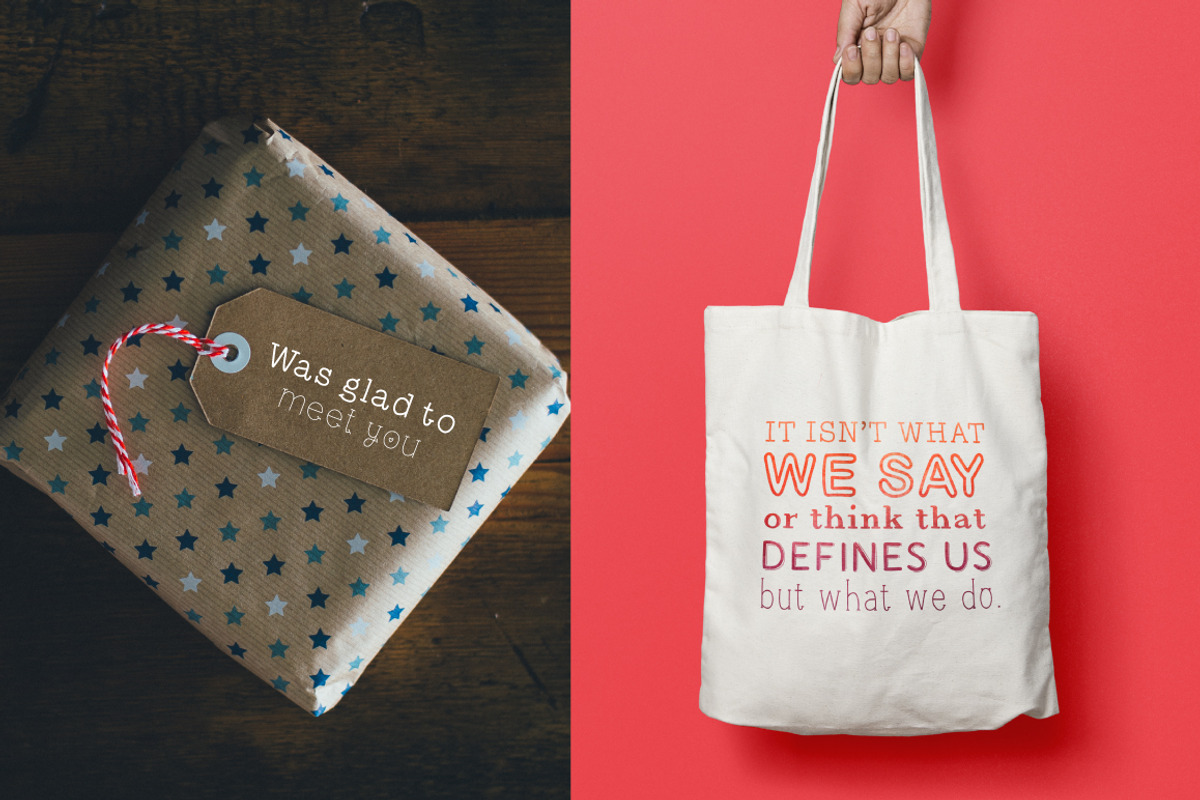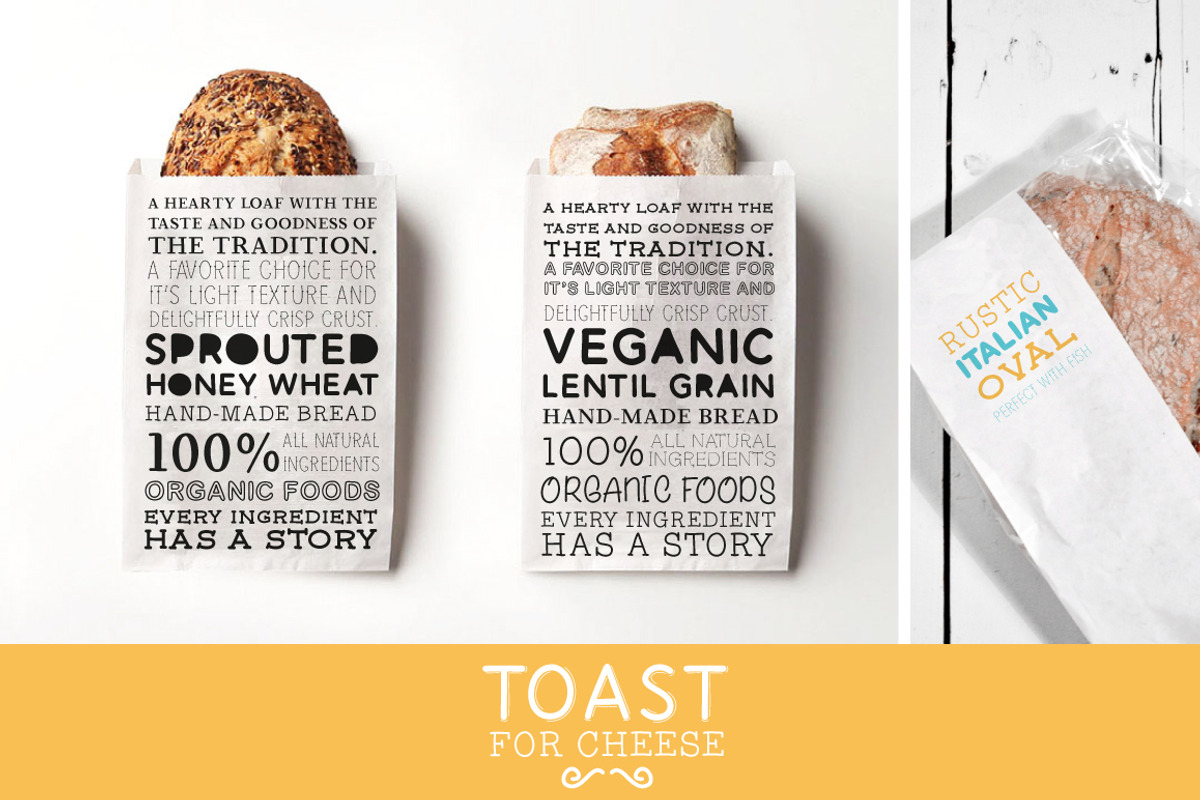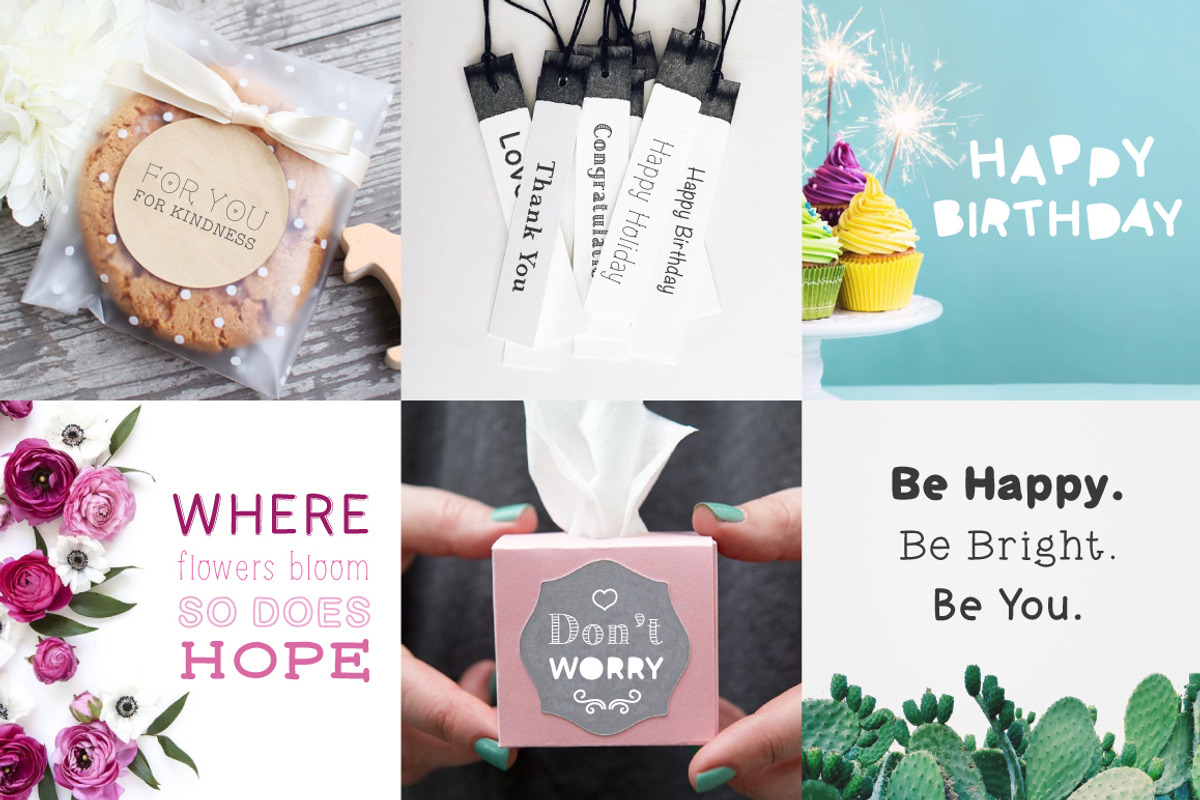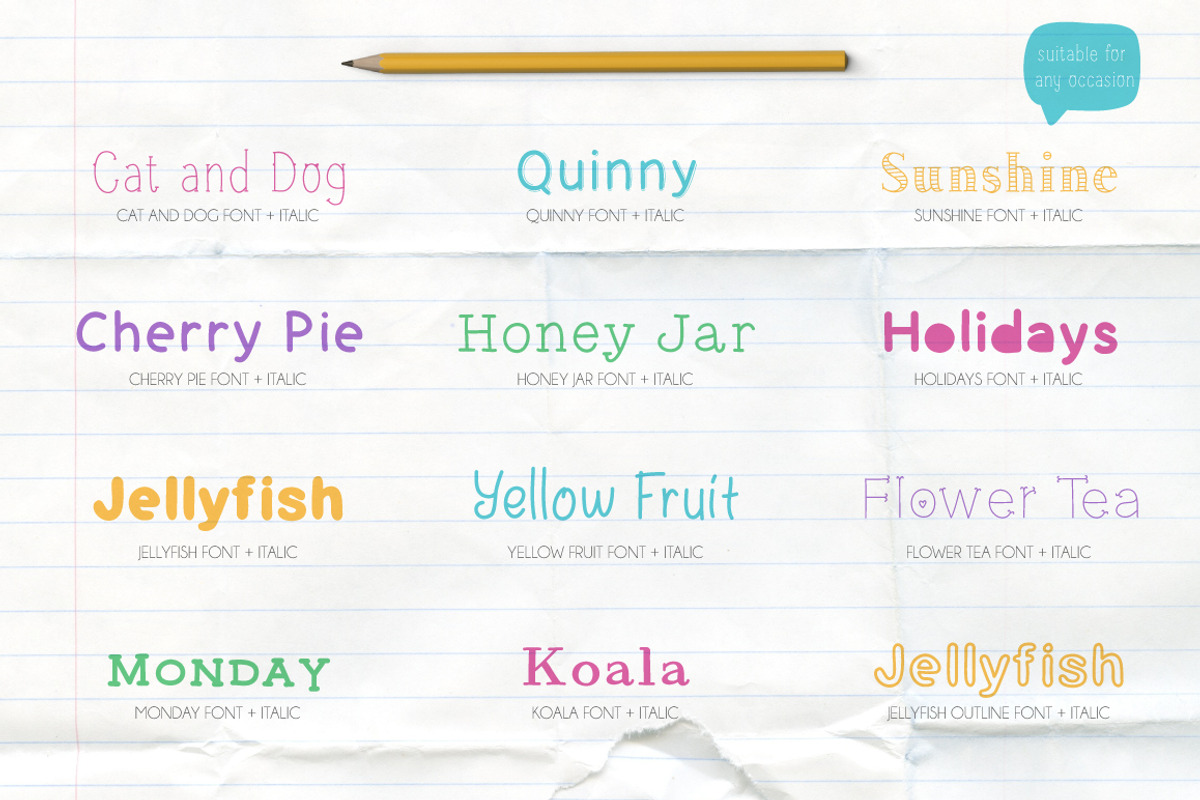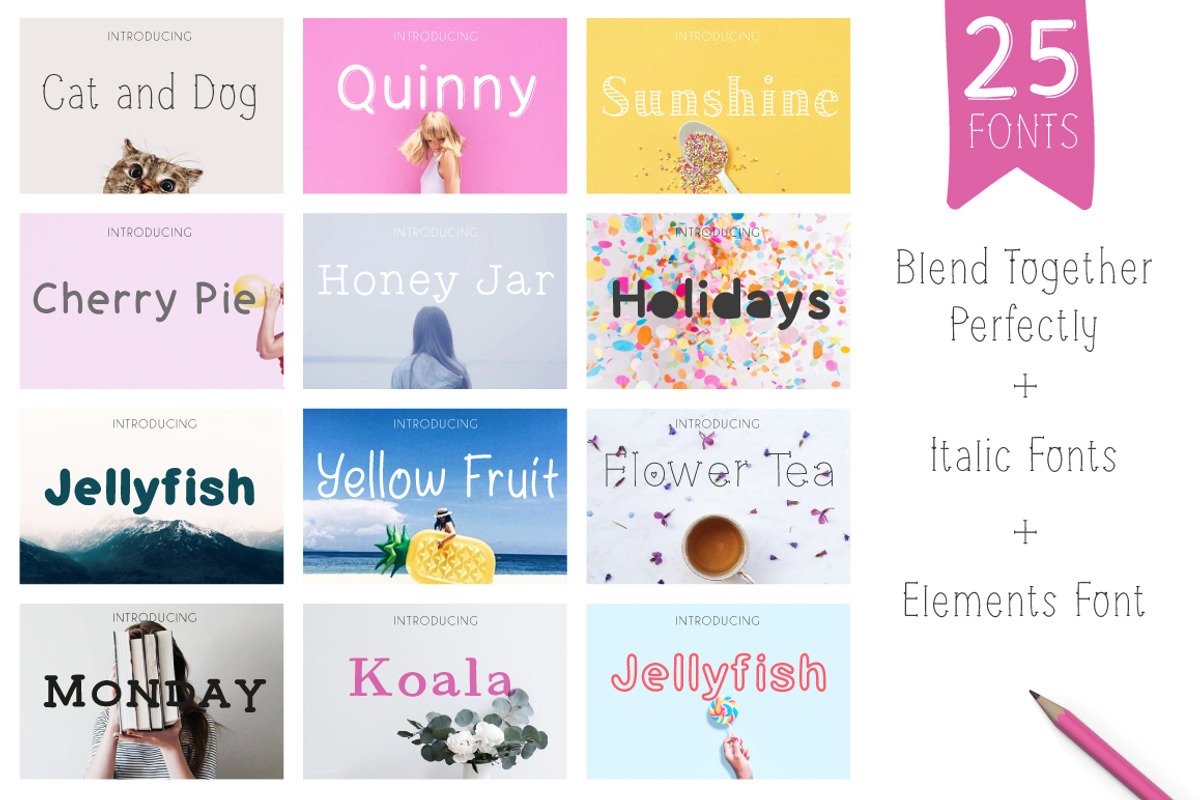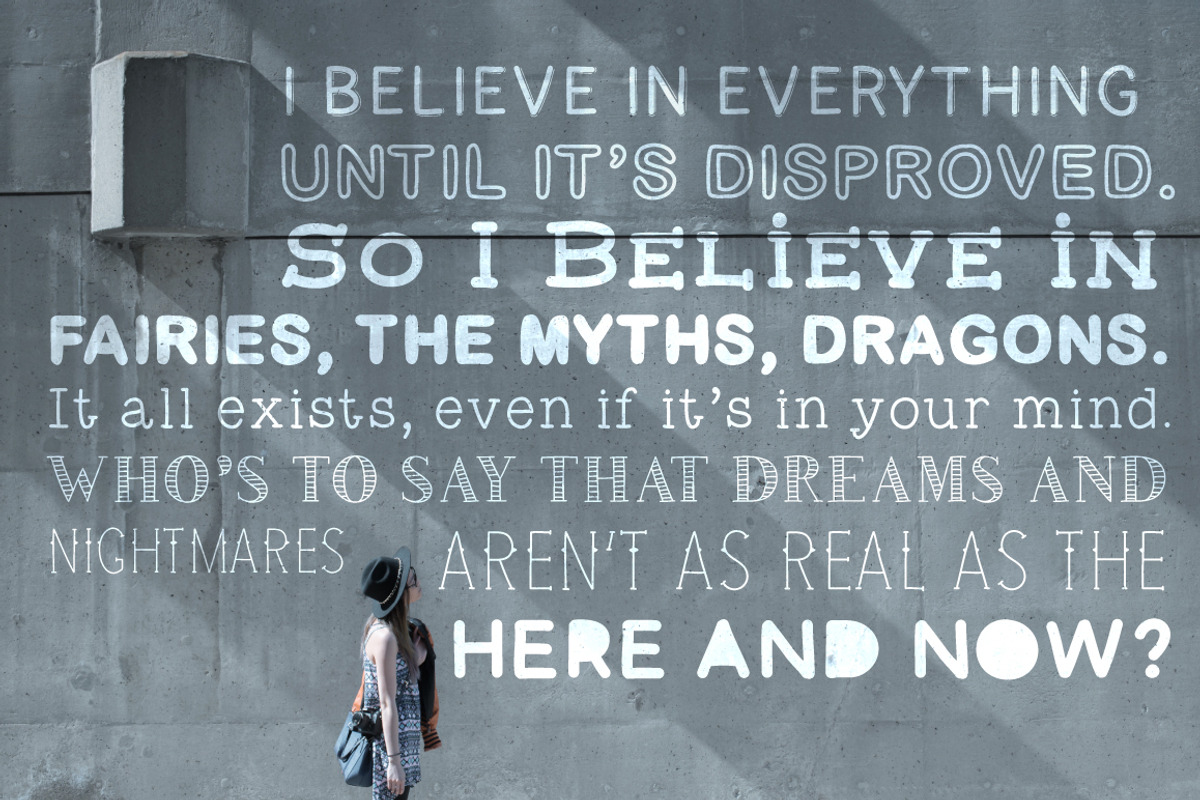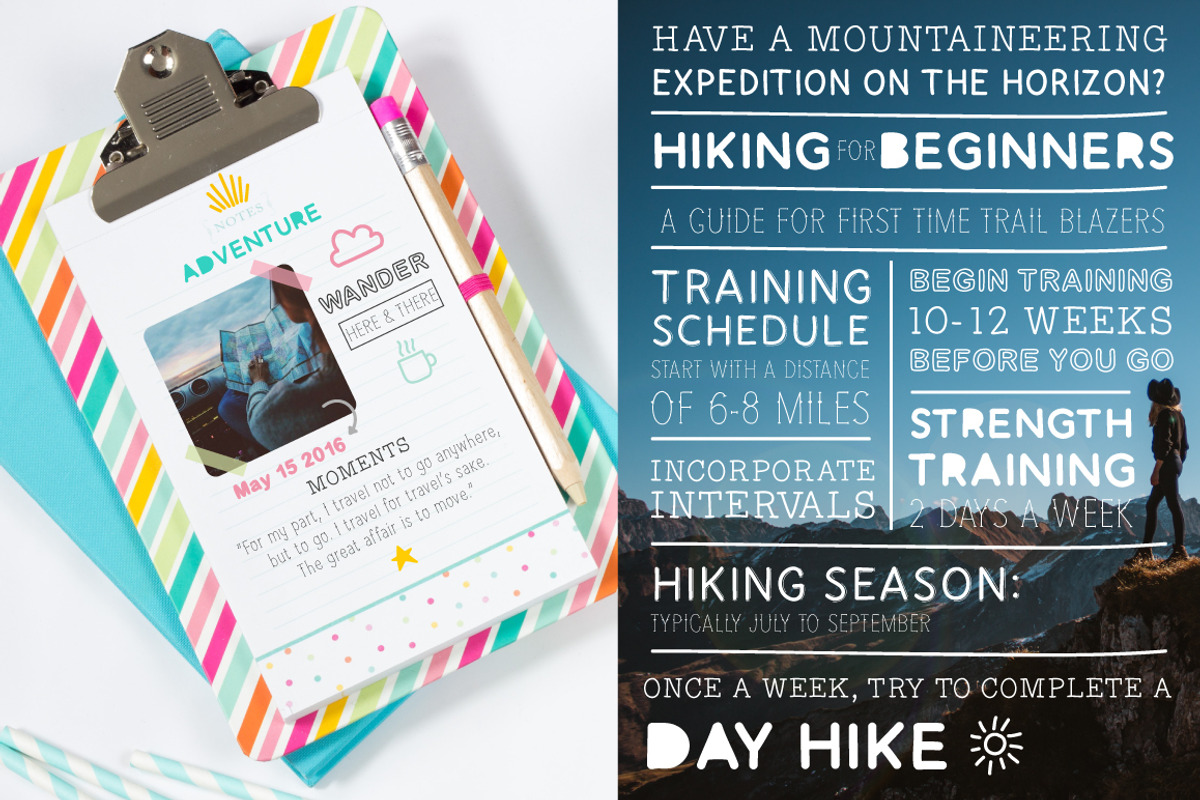
Fontytotty 25 Font Collection
Fontytotty 25 Font Collection by Julia Dreams is a font selected for branding, posters, packaging, typography.
Why Fontytotty 25 Font Collection is worth a look
Fontytotty 25 Font Collection by Julia Dreams fits naturally into Branding, posters, packaging, typography.